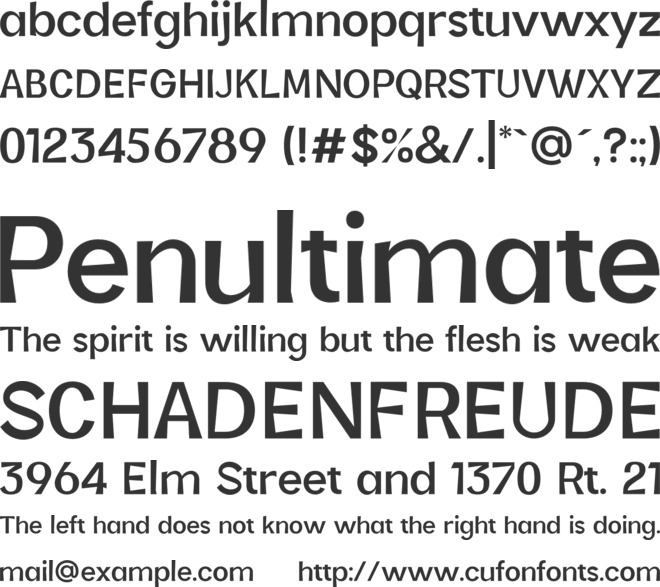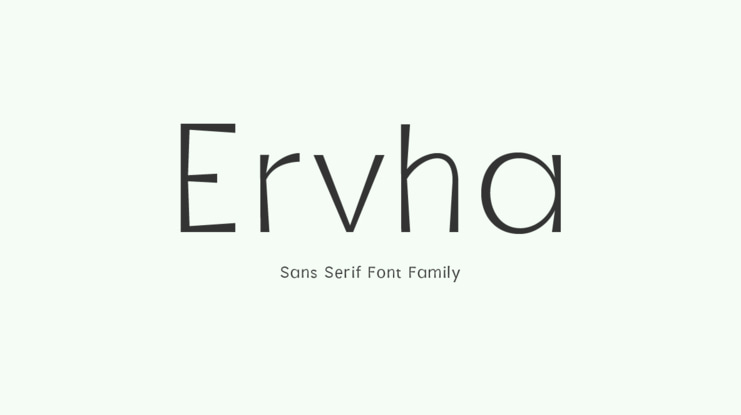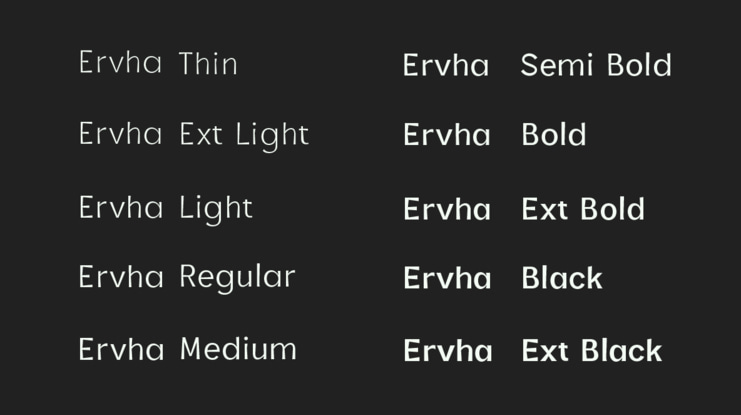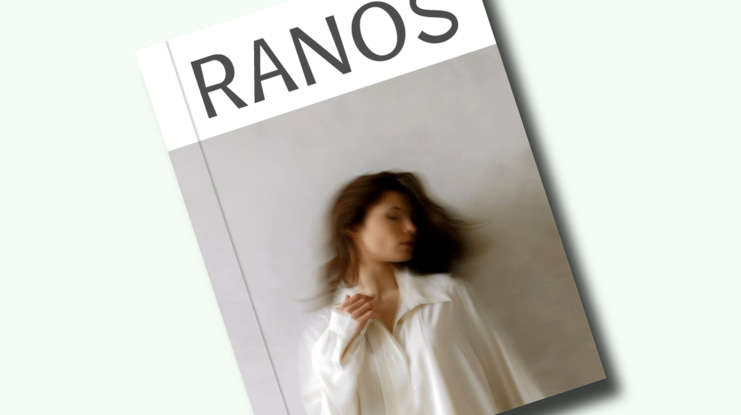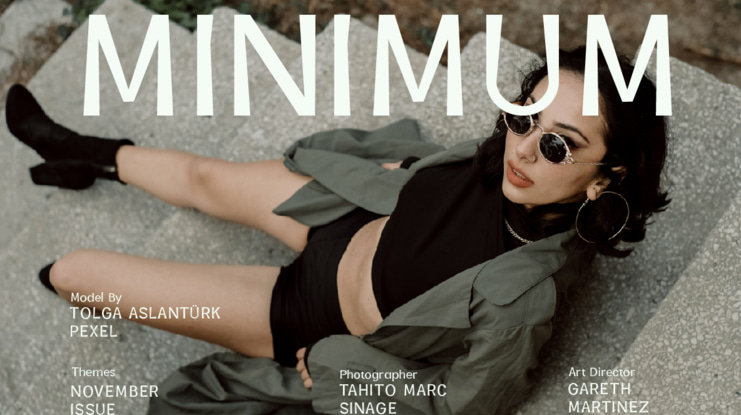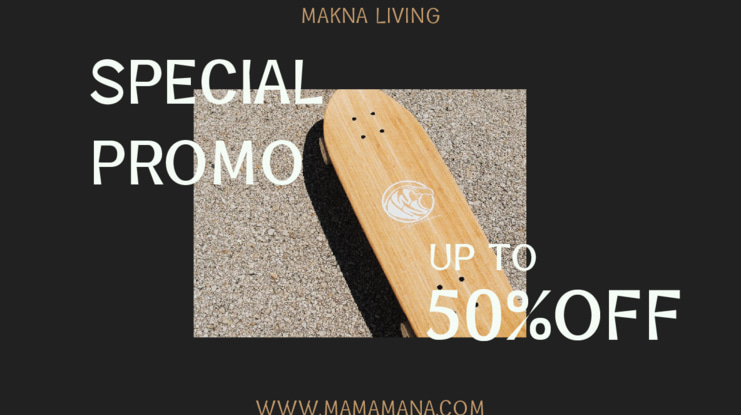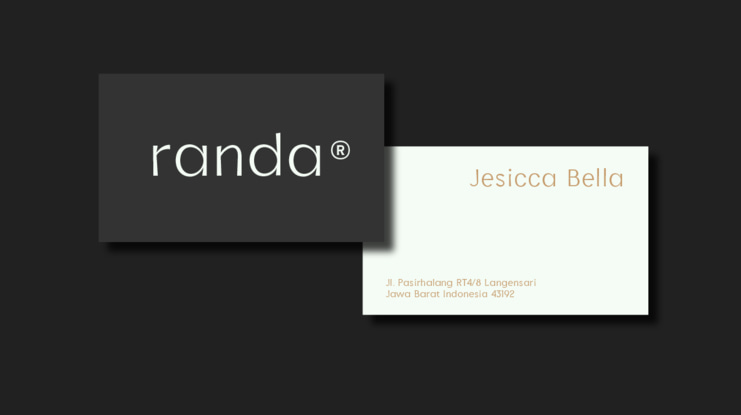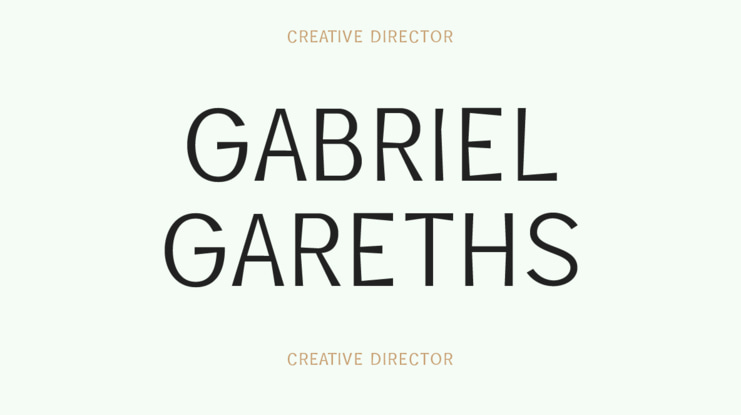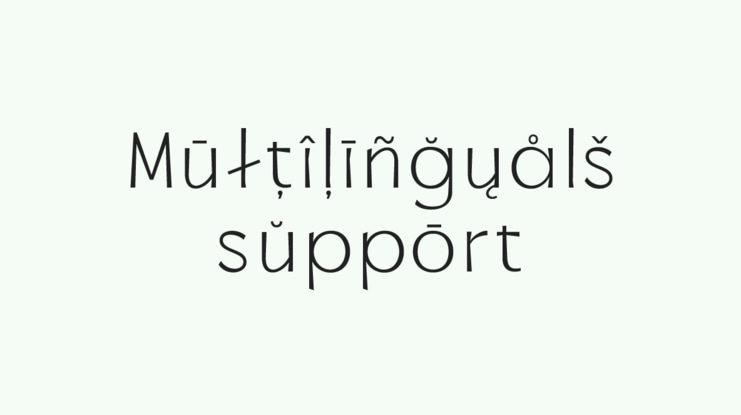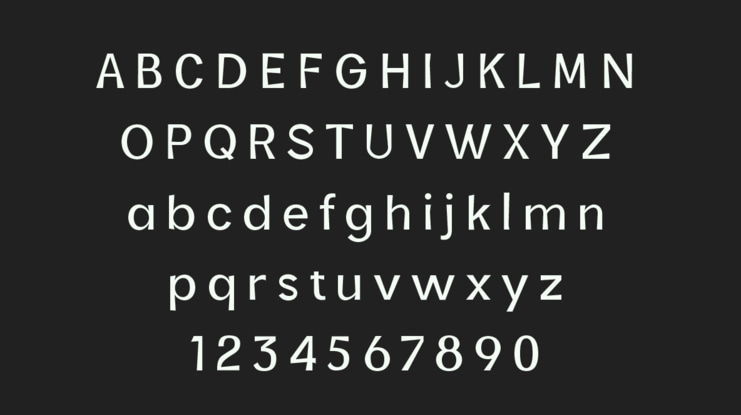
Ervha Sans Font Family
Ervha is a modern sans-serif font with a minimalist and trendy style. This font has 10 styles from thin to extra black Perfect font for print and digital projects. Quality fonts can help your projects become more modern and classy. This font also supports other languages
The clean and sharp lines of sans serif fonts are the main reason many graphic designers prefer this font style for both screen and print use. Clean lines and sharp edges can be displayed more clearly on the screen which improves legibility for users.
Enhance your Project by using Ervha Sans Serif Modern as your font of choice.